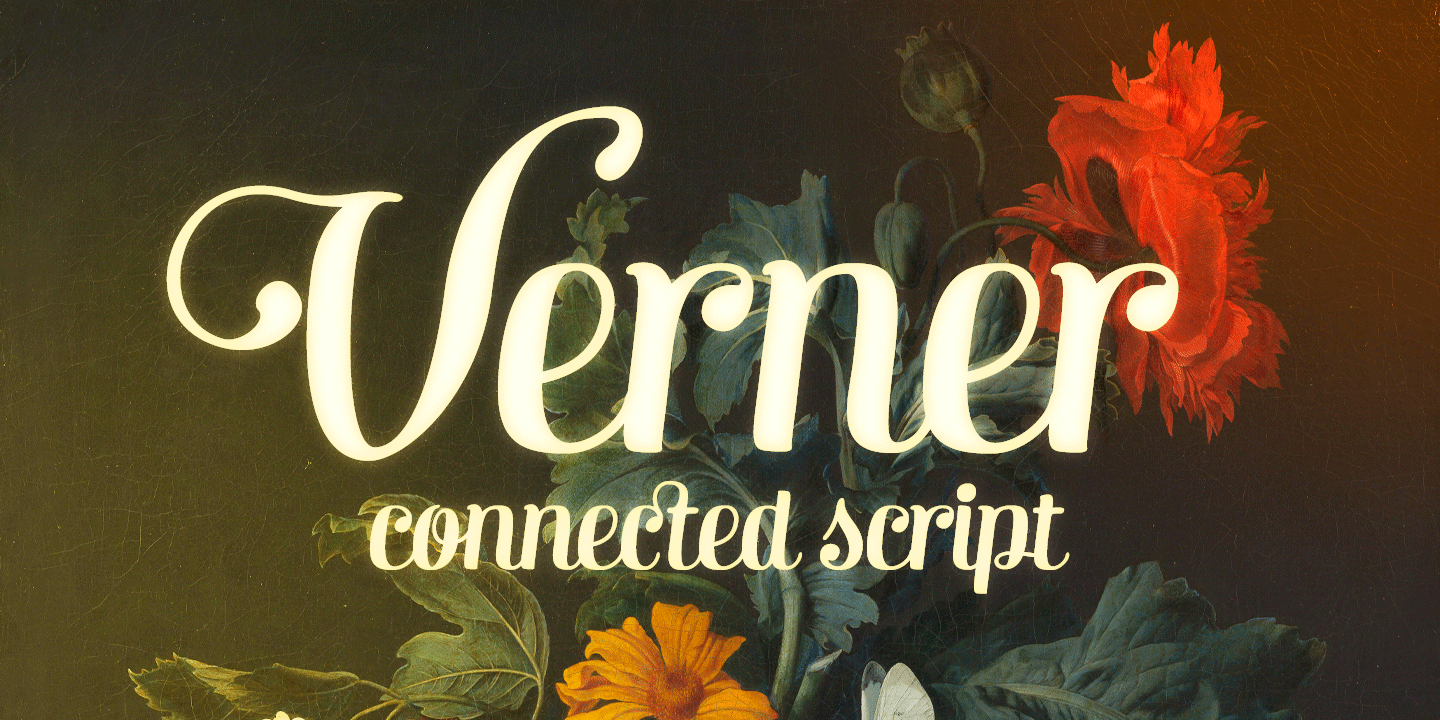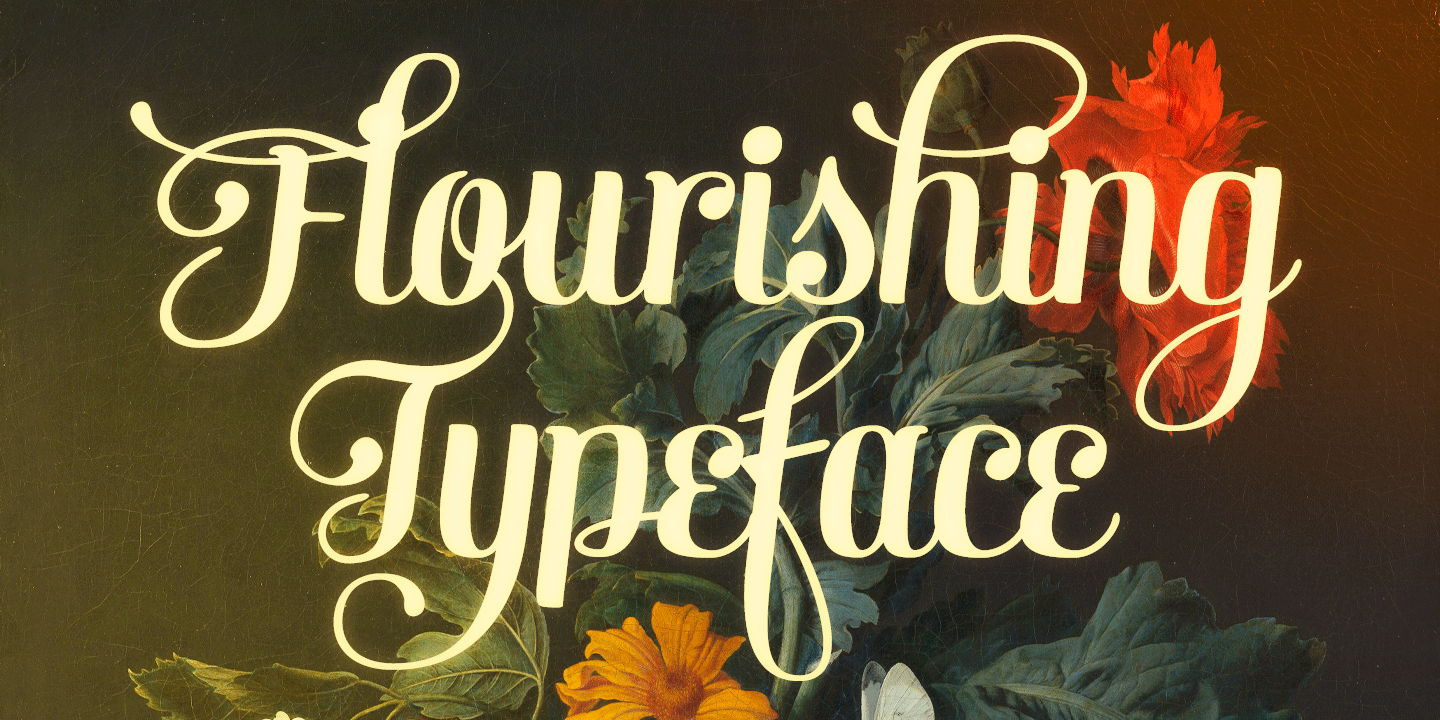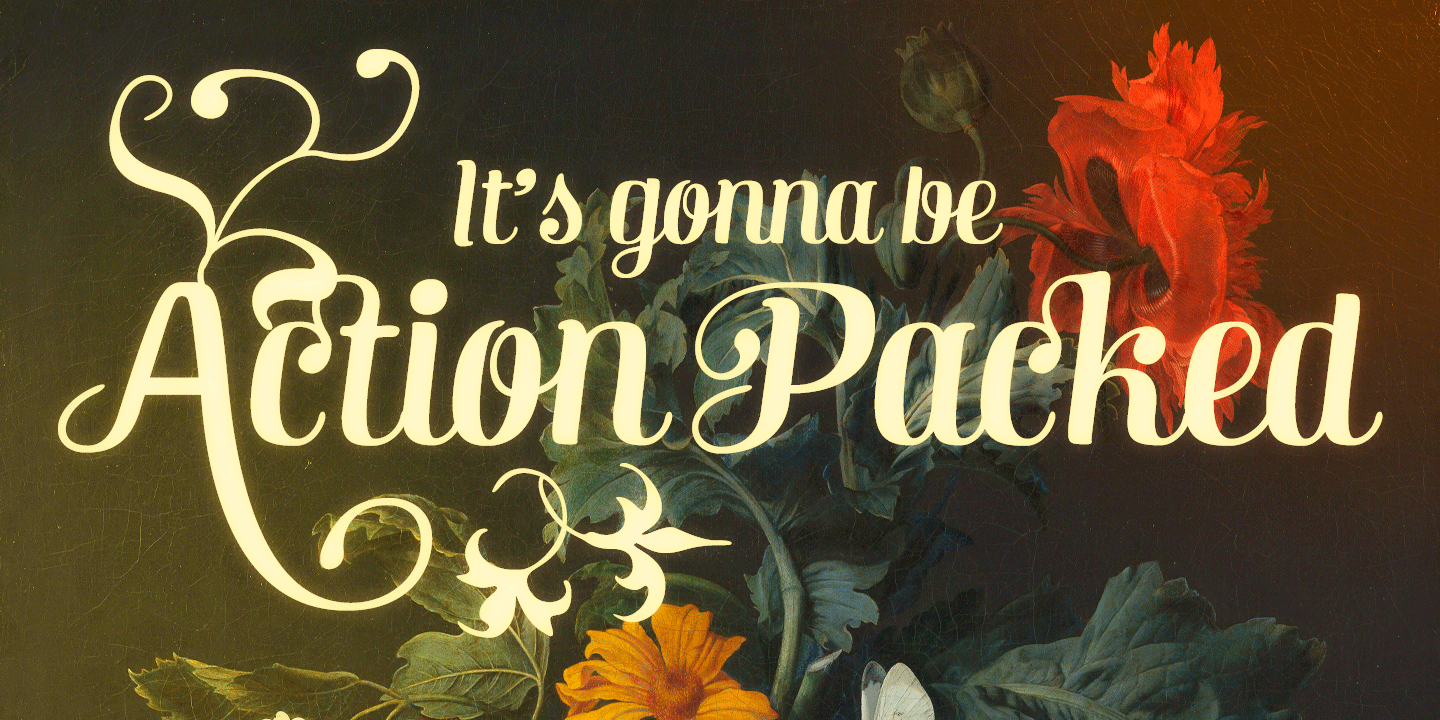
Verner
Font Family by Fenotype
Verner is a casual script font with an easy, expressive feel and a hand-drawn look that keeps display typography warm and approachable. Its flowing letterforms give layouts a personal touch, making it a strong choice when you want something relaxed, stylish, and a little informal.
Offered as a single style from Fenotype, this script is well suited to branding, packaging, posters, invitations, social graphics, and other decorative display work where a friendly handwritten voice can carry the design. If you’re after lettering that feels natural rather than rigid, Verner brings a smooth, characterful presence to the page.